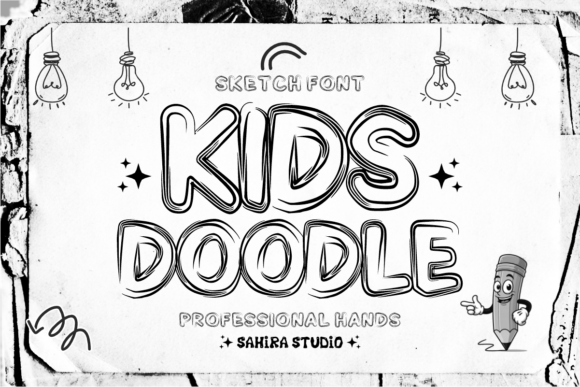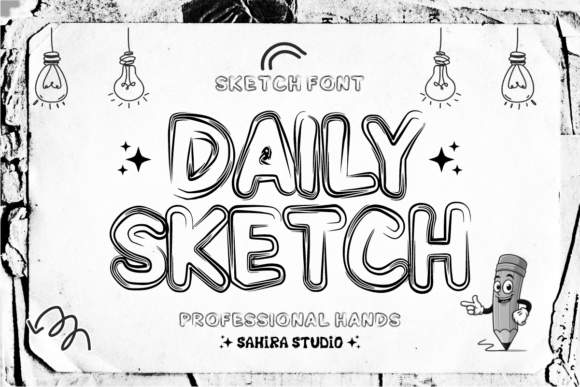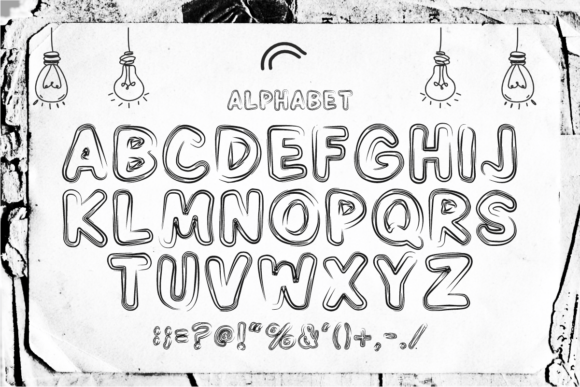
Introducing Handmade Font: A Whimsical and Kid-Friendly Sketch Font
Are you a designer, crafter, or parent looking for a font that adds a touch of whimsy and playfulness to your projects? Look no further than the Handmade font, a beautiful and kid-friendly sketch font that is sure to delight. Comprising solely of uppercase characters, this exquisite font is designed to bring a unique charm to any creation, making it perfect for a wide range of projects.
What makes Handmade Font special?
The Handmade font is specially designed to be adorably quirky, with each letter carefully crafted to offer easy recognition and a distinct personality. The font’s uppercase characters are perfect for creating eye-catching titles, headings, and captions that are sure to grab attention. Whether you’re working on a project for kids or simply want to add a playful touch to your design, Handmade font is an excellent choice.
Ideal for Kids’ Projects
As a font designed specifically with kids in mind, Handmade is ideal for a wide range of projects, including:
- Crafting: Add a personal touch to your crafting projects, such as handmade cards, gift tags, and DIY decorations.
- Mugs, t-shirts, and tote bags: Create fun and playful designs for kids’ favorite products.
- Animated clips: Add a touch of whimsy to your animated videos and shorts.
- Comic book titles: Create eye-catching titles and headings for your comic books and graphic novels.
- Children’s colouring books: Add a playful touch to your colouring books and activity sheets.
- Kid’s supplies: Design fun and engaging labels, stickers, and other supplies for kids.
Why Choose Handmade Font?
So why choose Handmade font for your next project? Here are just a few reasons:
- Unique charm: Handmade font offers a unique and playful charm that is sure to set your project apart.
- Ease of use: With its simple and easy-to-read design, Handmade font is perfect for projects where clarity is key.
- Kid-friendly: As a font designed specifically with kids in mind, Handmade is perfect for projects aimed at a young audience.
- Versatile: Handmade font can be used for a wide range of projects, from crafting and design to animation and publishing.
Adding a Touch of Whimsy to Your Design
One of the best things about Handmade font is its ability to add a touch of whimsy to any design. Whether you’re working on a project for kids or simply want to add a playful touch to your design, Handmade font is the perfect choice. With its unique charm and playful personality, Handmade font is sure to bring a smile to anyone’s face.
Getting Creative with Handmade Font
So how can you get creative with Handmade font? Here are a few ideas to get you started:
- Mix and match: Combine Handmade font with other fonts and design elements to create a unique and eye-catching design.
- Add illustrations: Pair Handmade font with fun and playful illustrations to bring your design to life.
- Experiment with colours: Try out different colours and colour combinations to add an extra touch of whimsy to your design.
In conclusion, Handmade font is a beautiful and kid-friendly sketch font that is perfect for a wide range of projects. With its unique charm, ease of use, and versatility, Handmade font is sure to become a valuable addition to your design toolkit. So why not venture down the creative rabbit hole with Handmade font and see where it takes you?